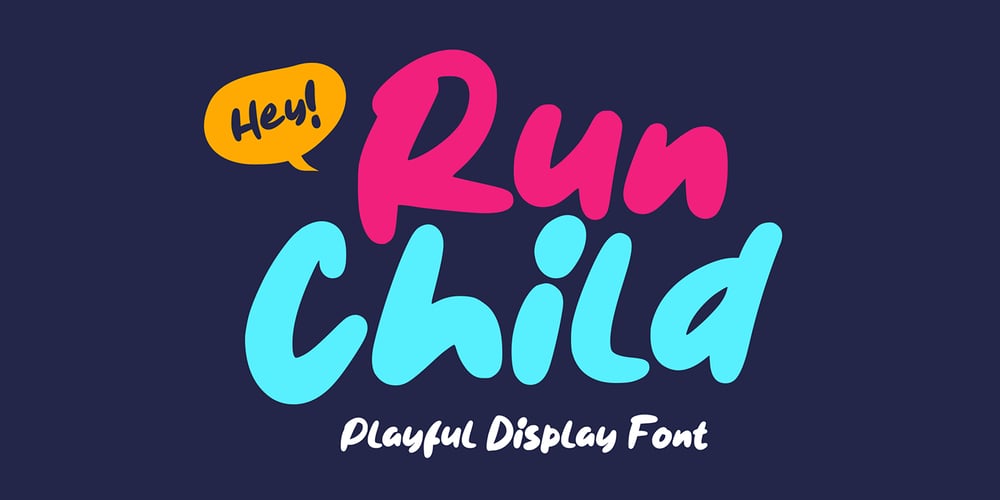
Run Child Font Family was designed by Icep Anwar Fadhil and published by Figuree Studio. Run Child contains 1 styles and family package options. Say hello to Run Child font.Made with love and joy. Comic look, so it will make your design more beautiful, cute, fun and colorful.Features: Character Set Numerals and Punctuation (OpenType Standard) Accents (Multilingual characters) PUA Encode